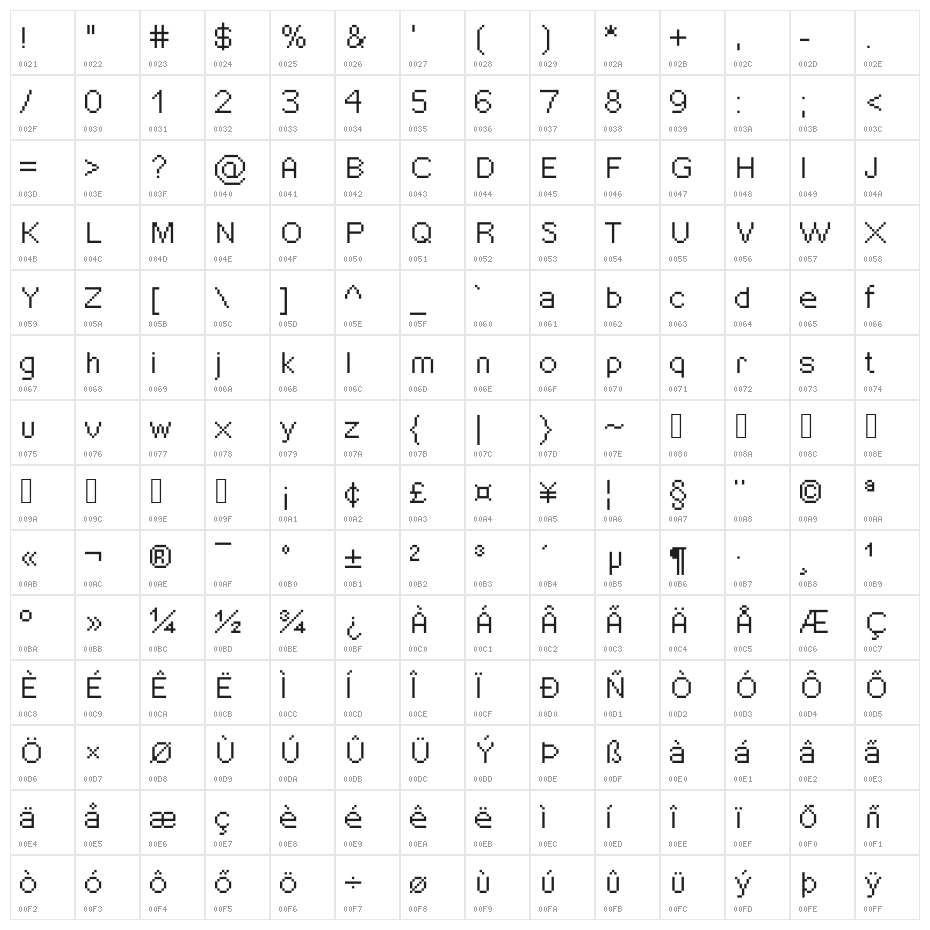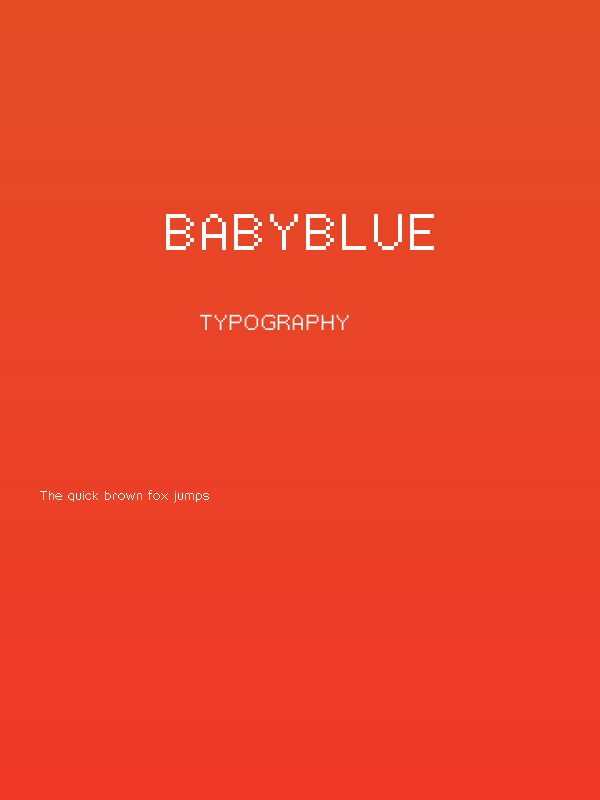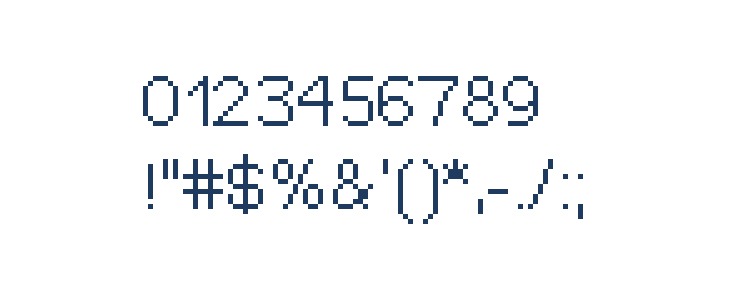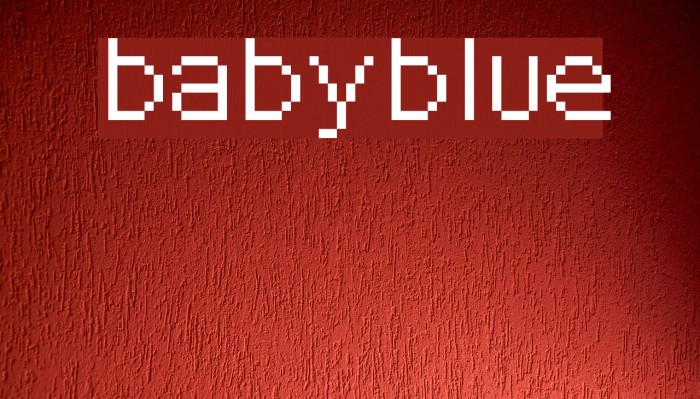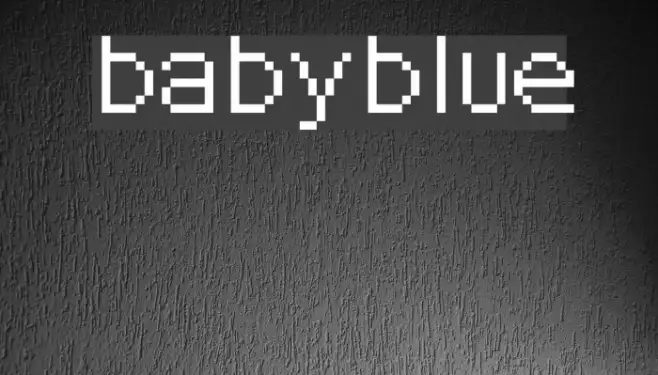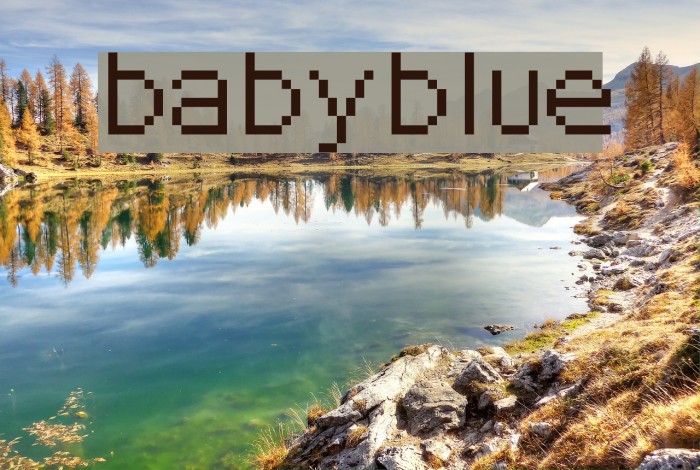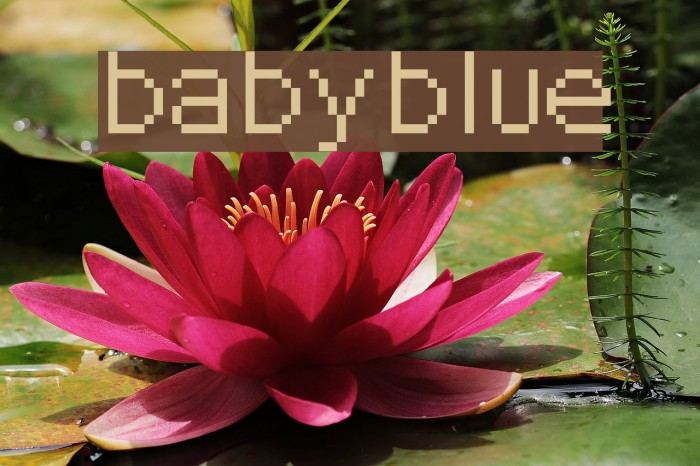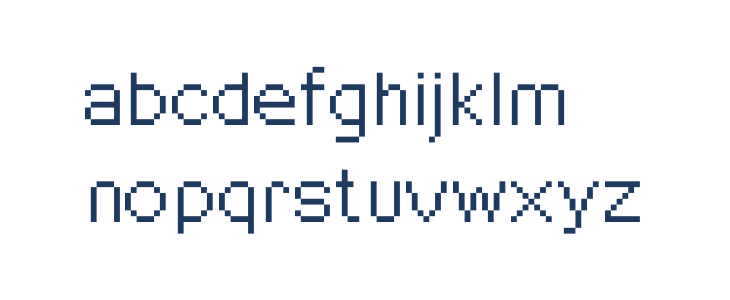
babyblue Font
babyblue Description
This font features a pixelated, grid-like design that evokes a retro, digital aesthetic reminiscent of early computer graphics. Each character is constructed with a uniform grid pattern, giving it a blocky and geometric appearance. The uppercase and lowercase letters maintain a consistent height and width, contributing to a monospaced feel, although it is not strictly monospaced. The numerals and special characters follow the same design principles, ensuring a cohesive look across all glyphs. The font's simplicity and clarity make it highly legible, even at smaller sizes, while its distinctive style adds a playful, nostalgic touch.
| Use Case | Headlines, Logos, Digital Art |
| Proposed Projects | Ideal for video game design, retro-themed projects, digital art, and any creative work that seeks to capture a nostalgic, tech-inspired look. |